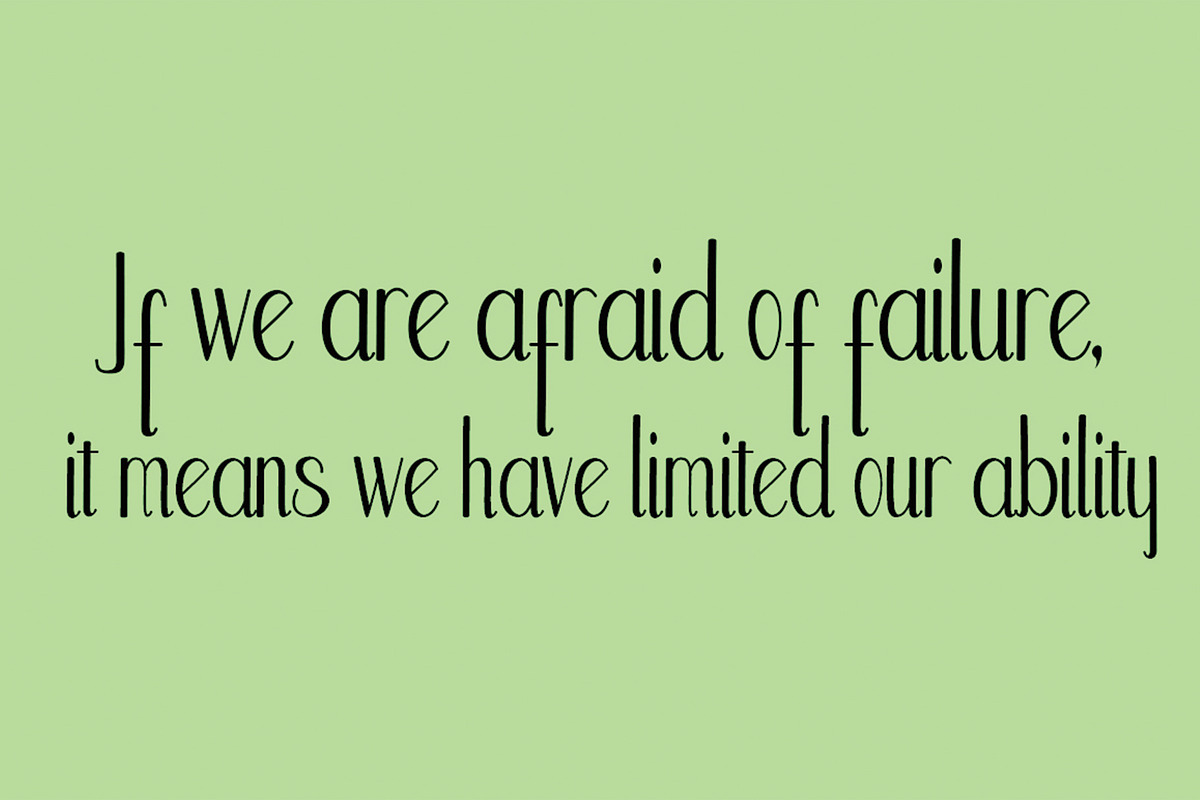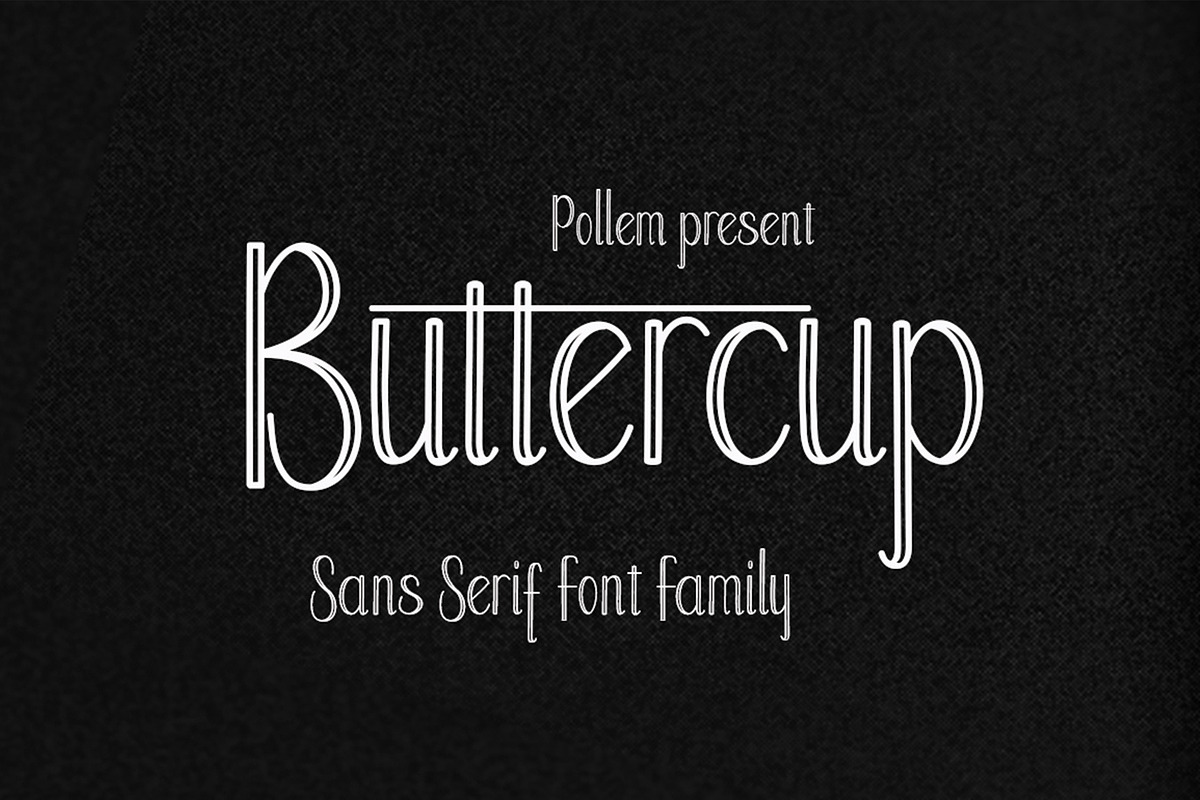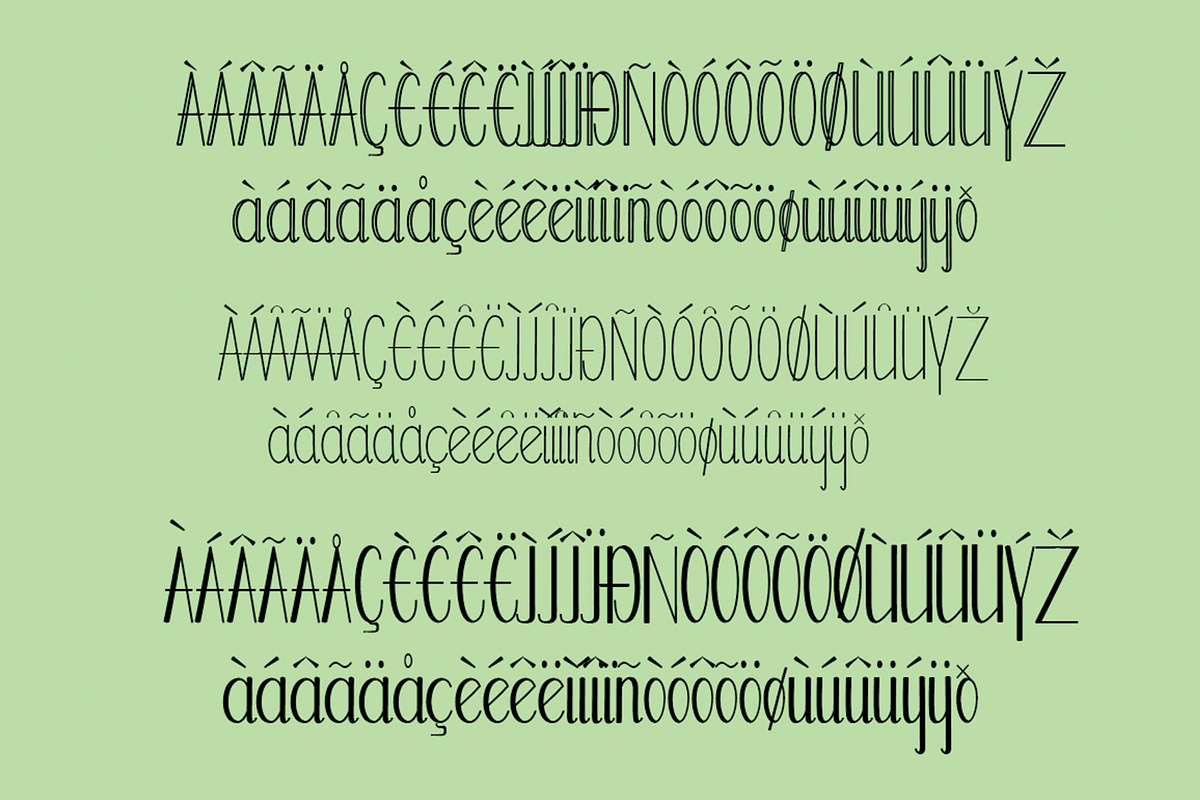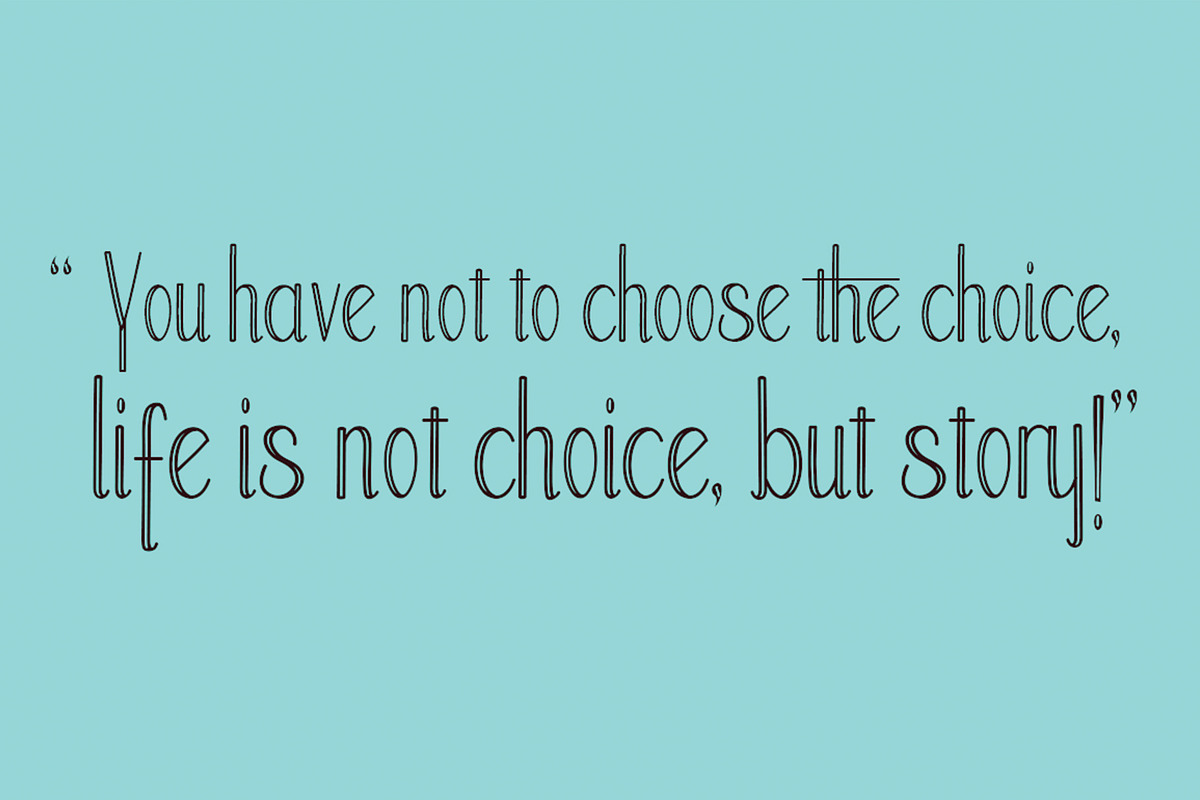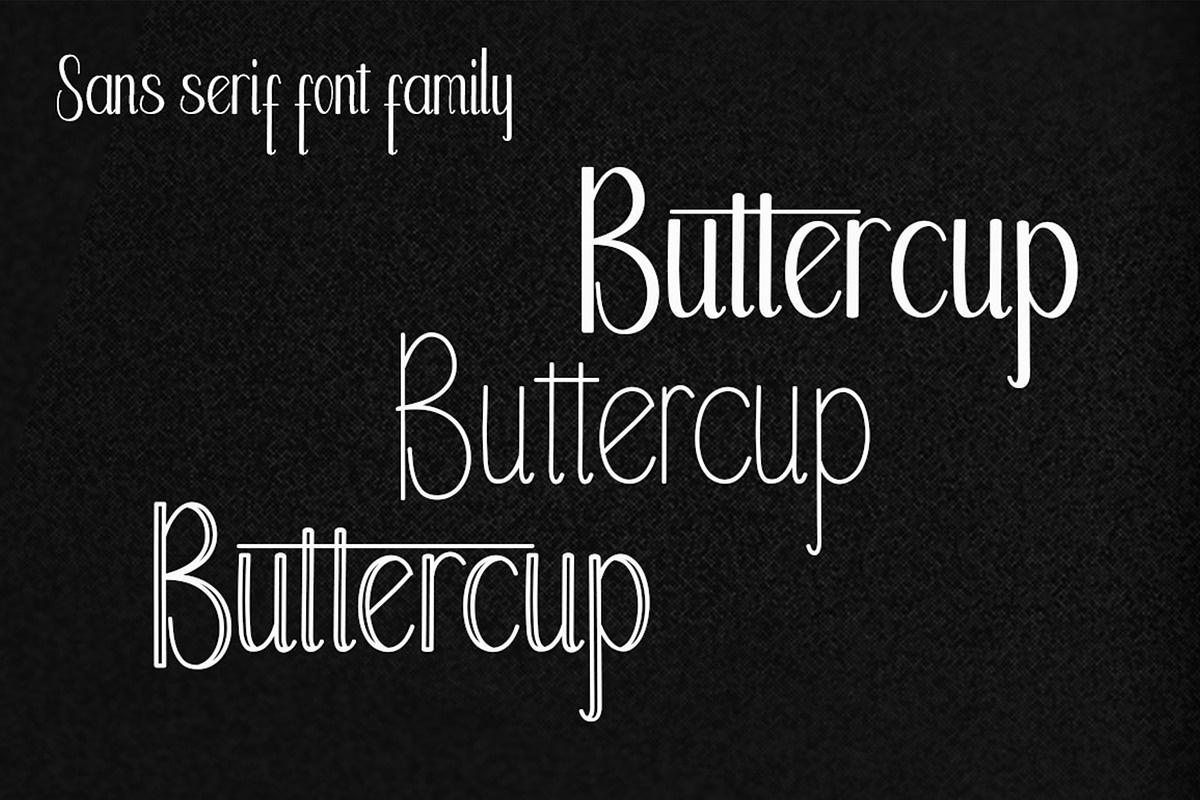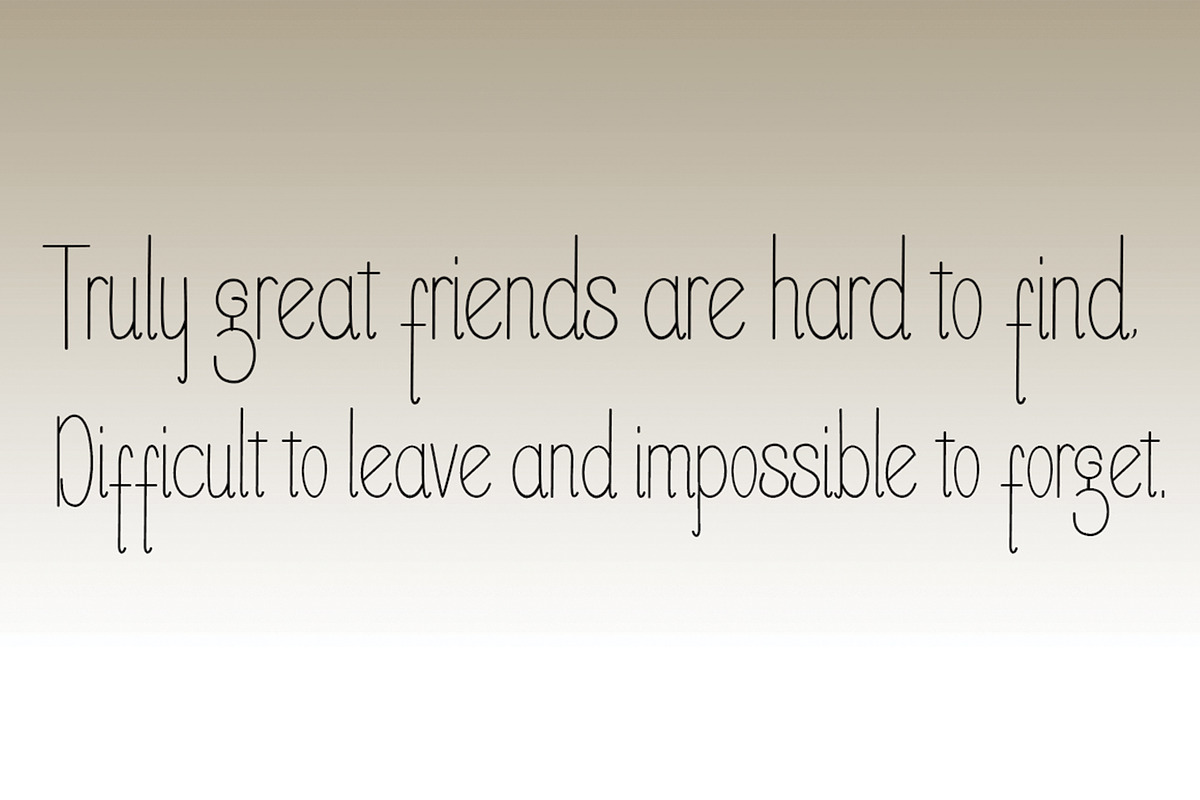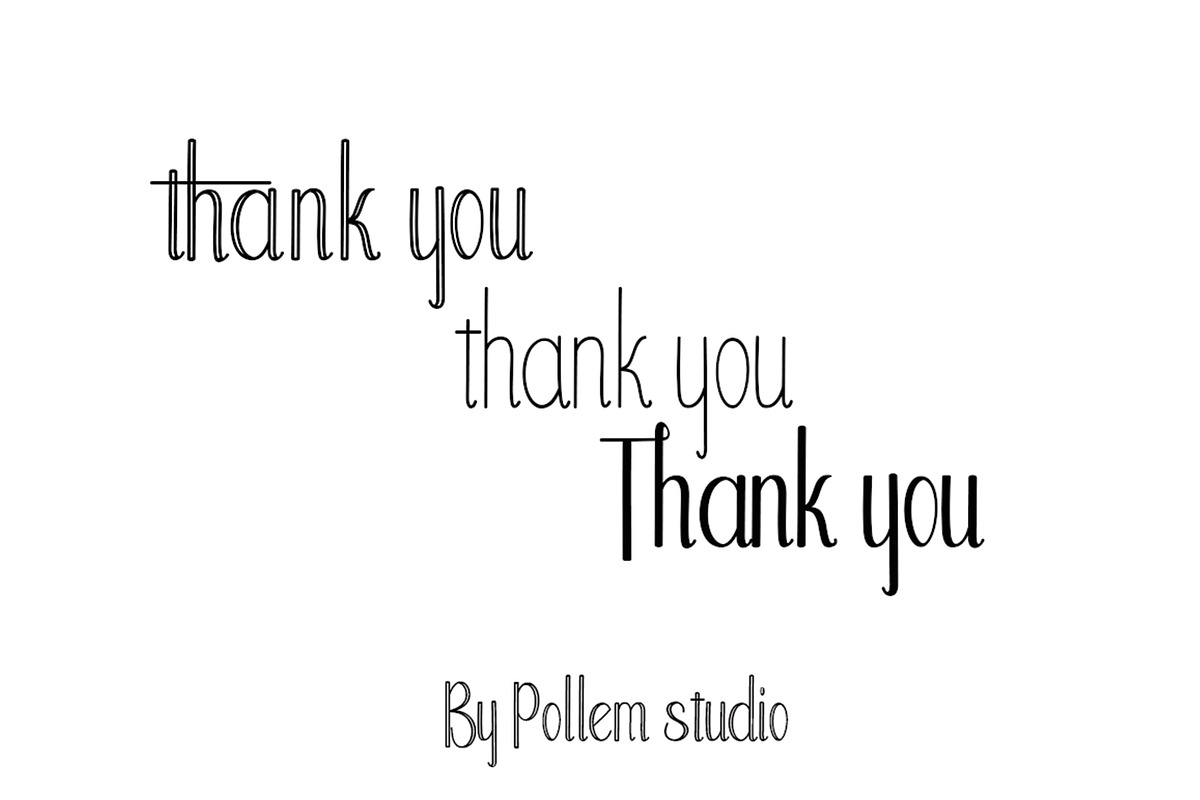
Buttercup
Buttercup Family is a 3-style sans serif font, which features a sleek, bold, thin typeface that's very simple and easy to manipulate: headings, logos, wedding invitations, t-shirts, letterhead, labels, news, posters, slogans, and made in advertising message.